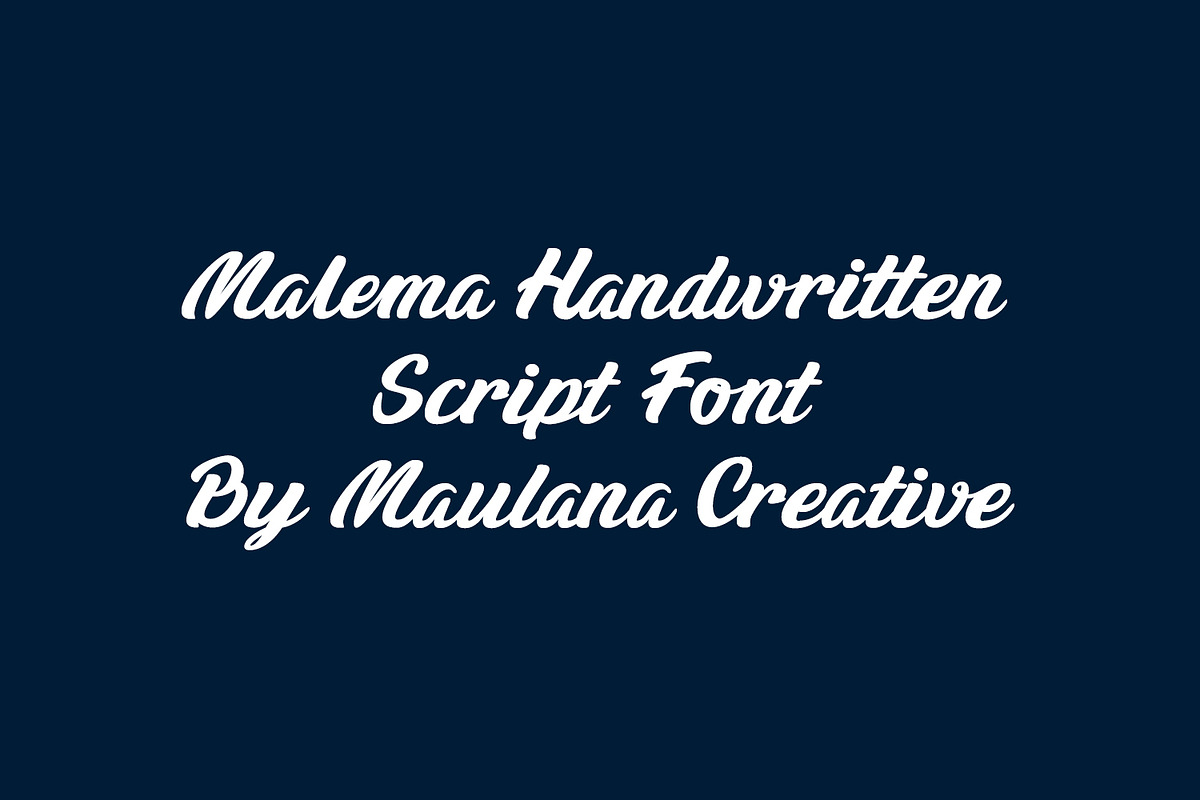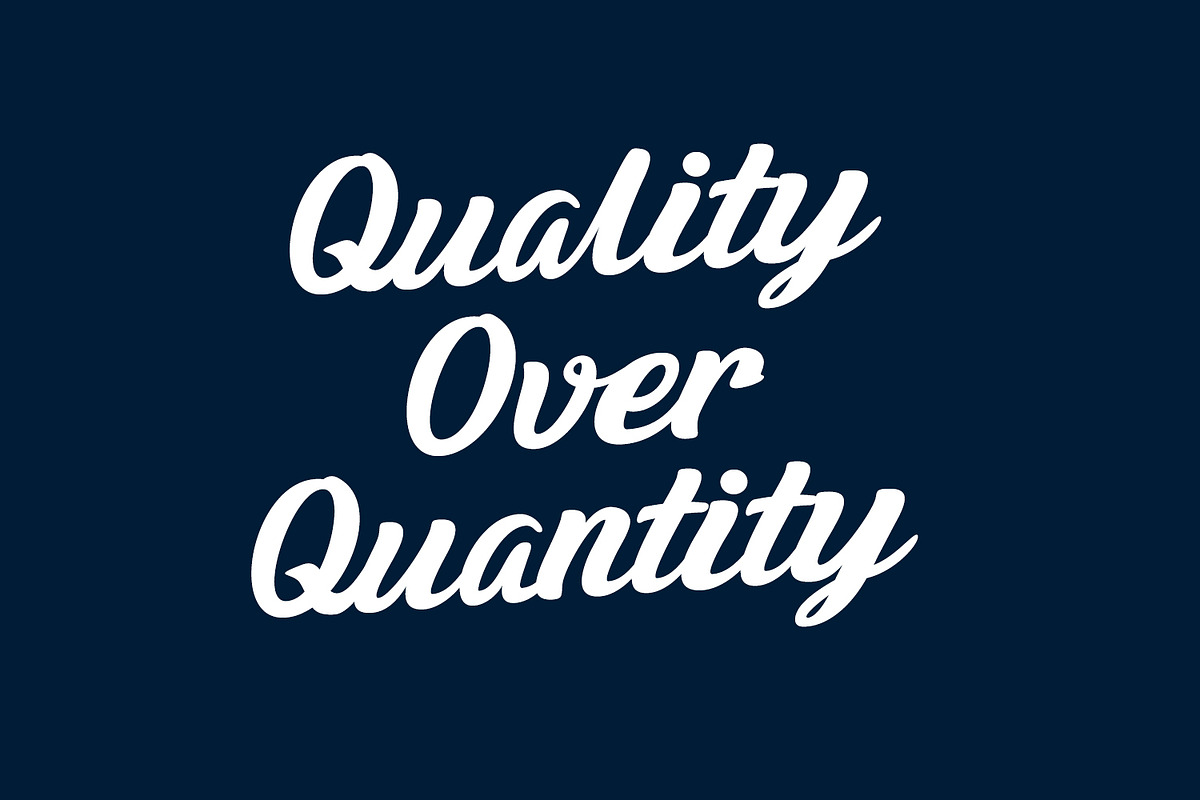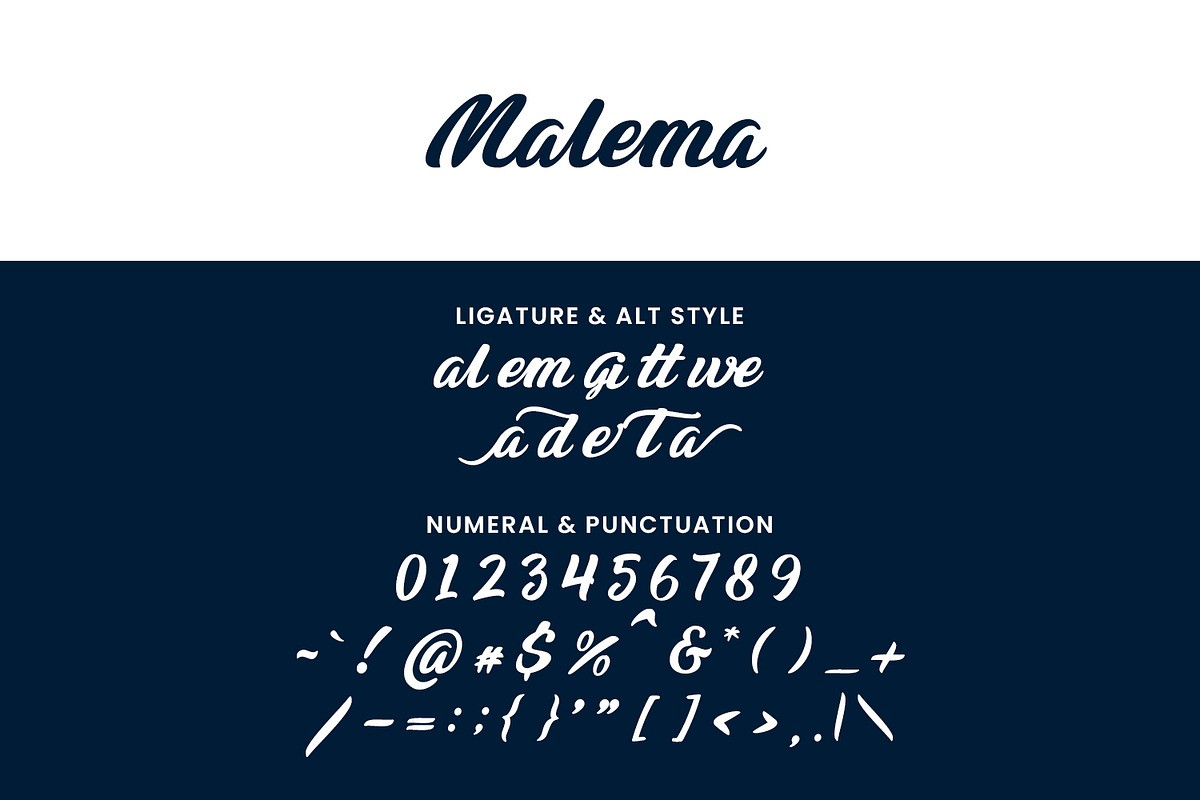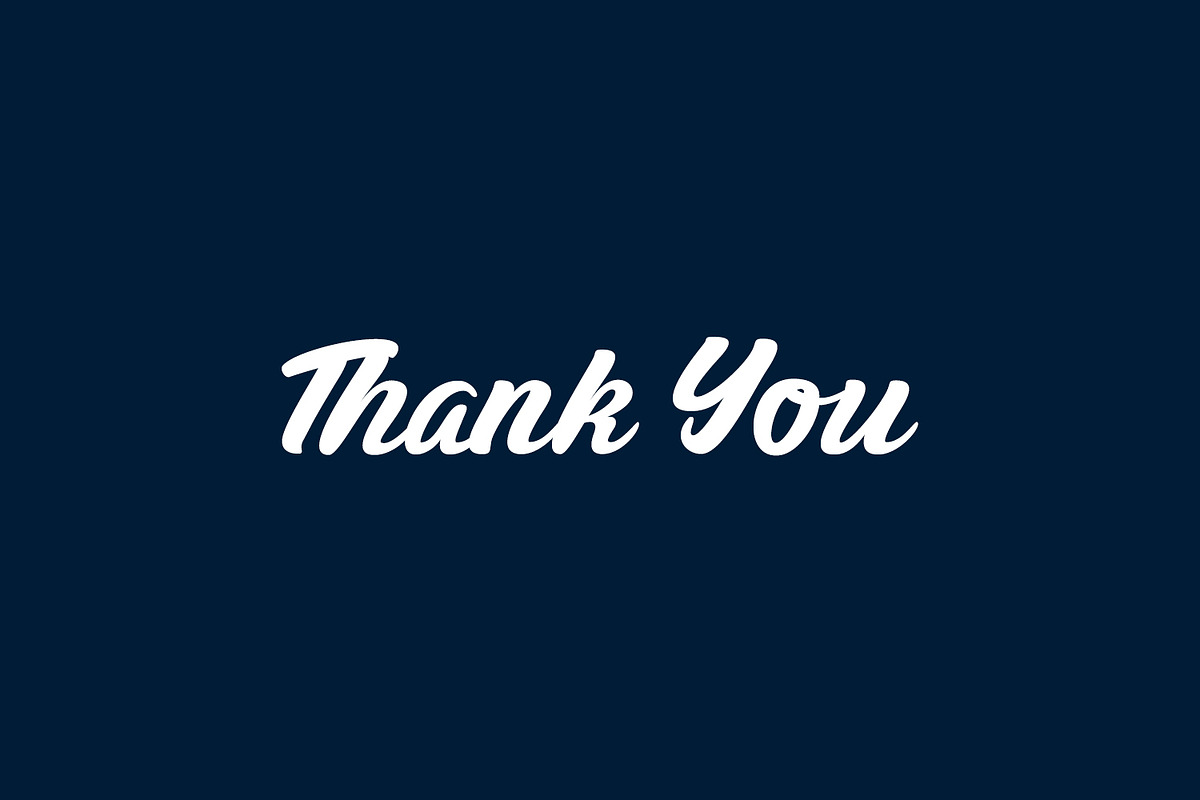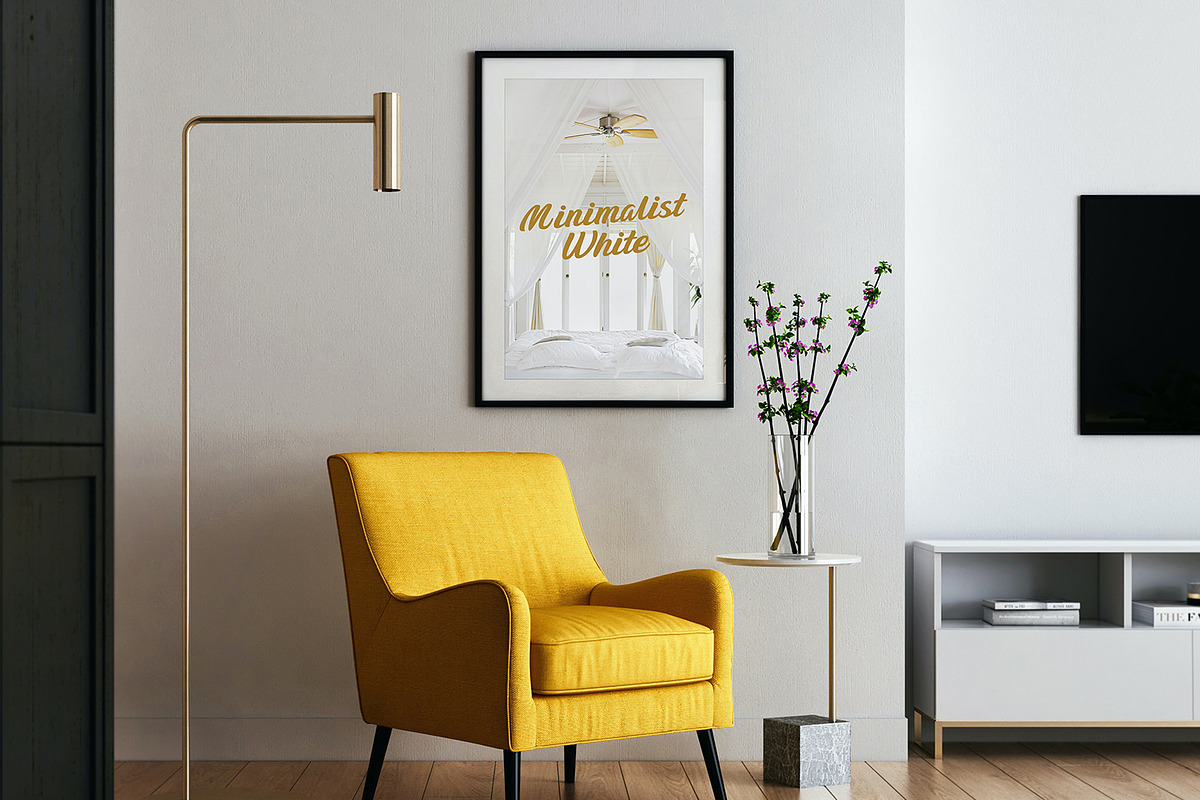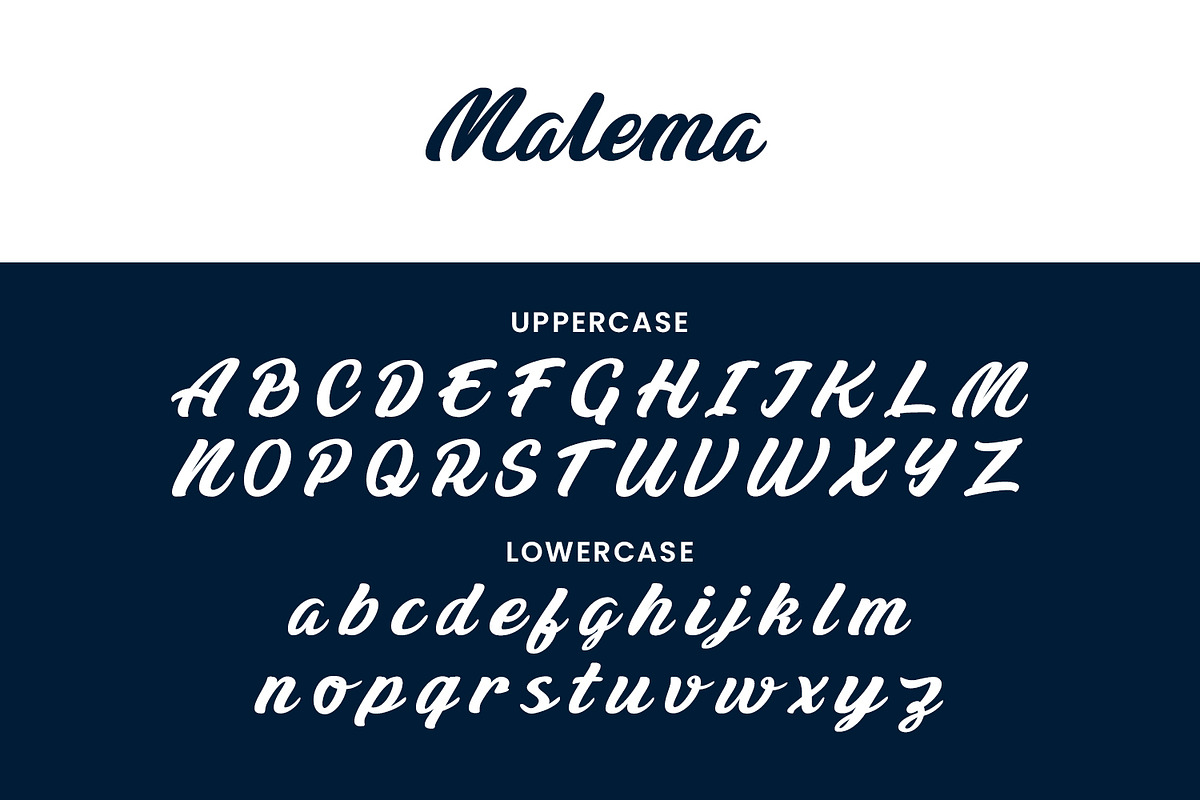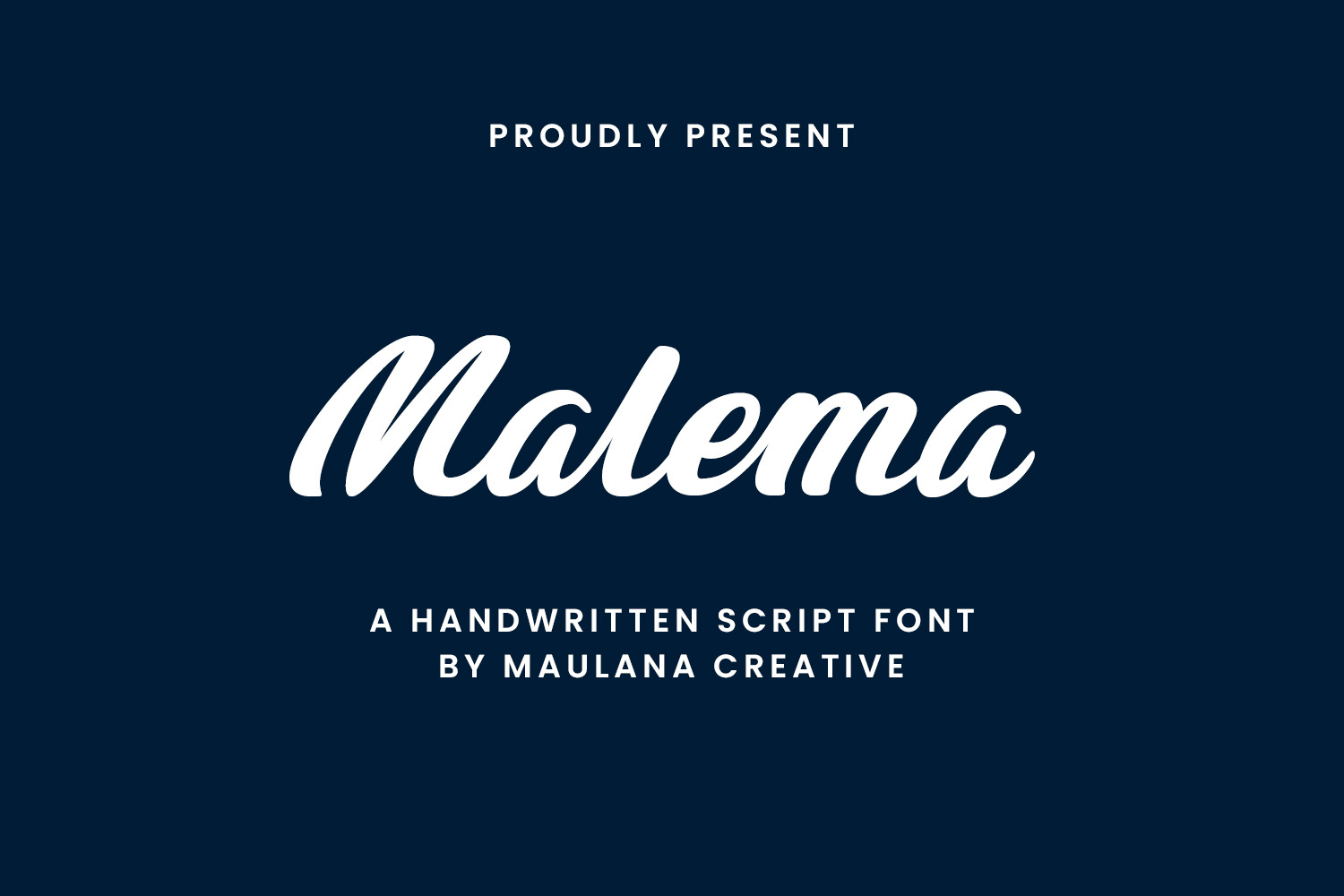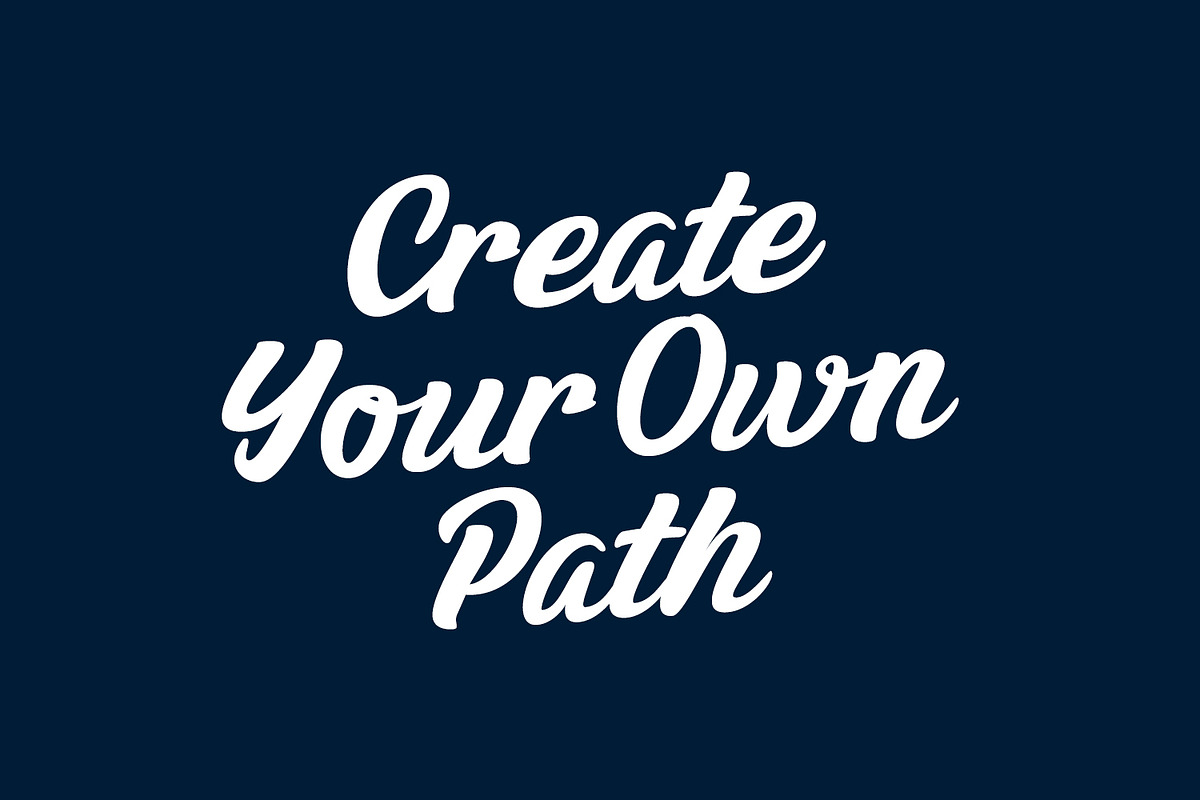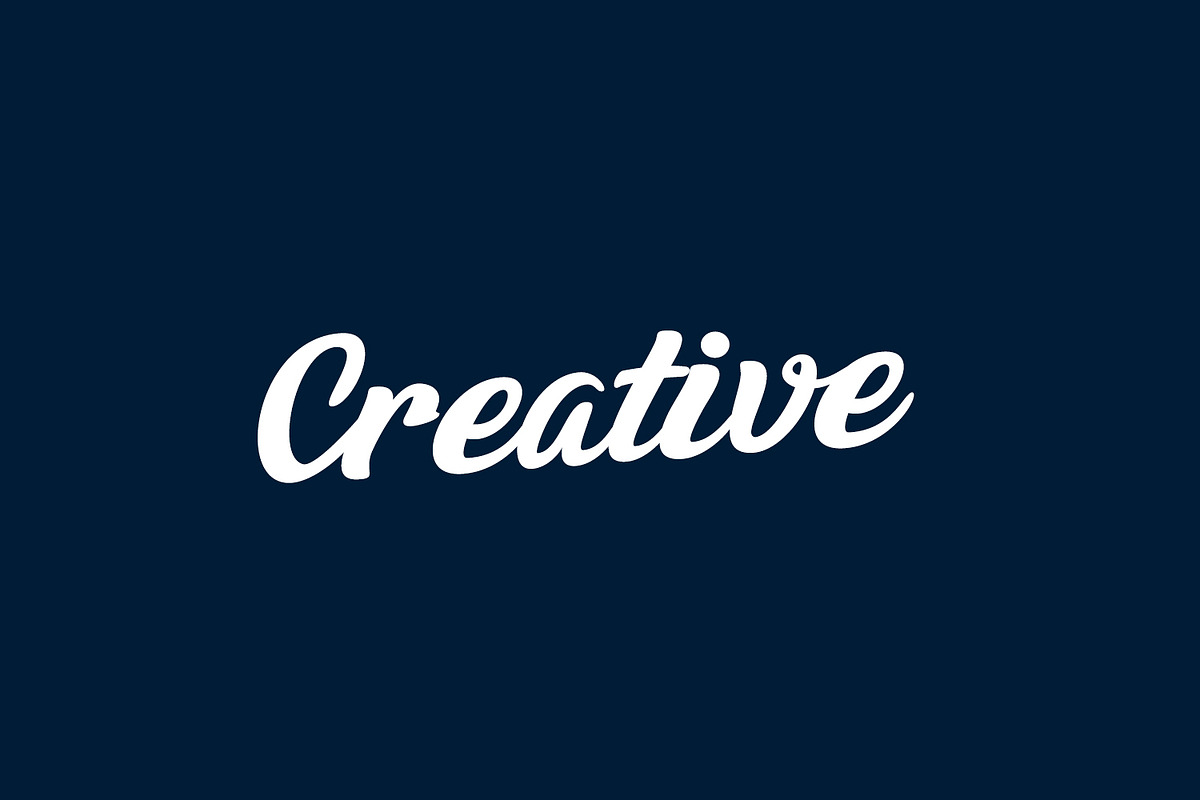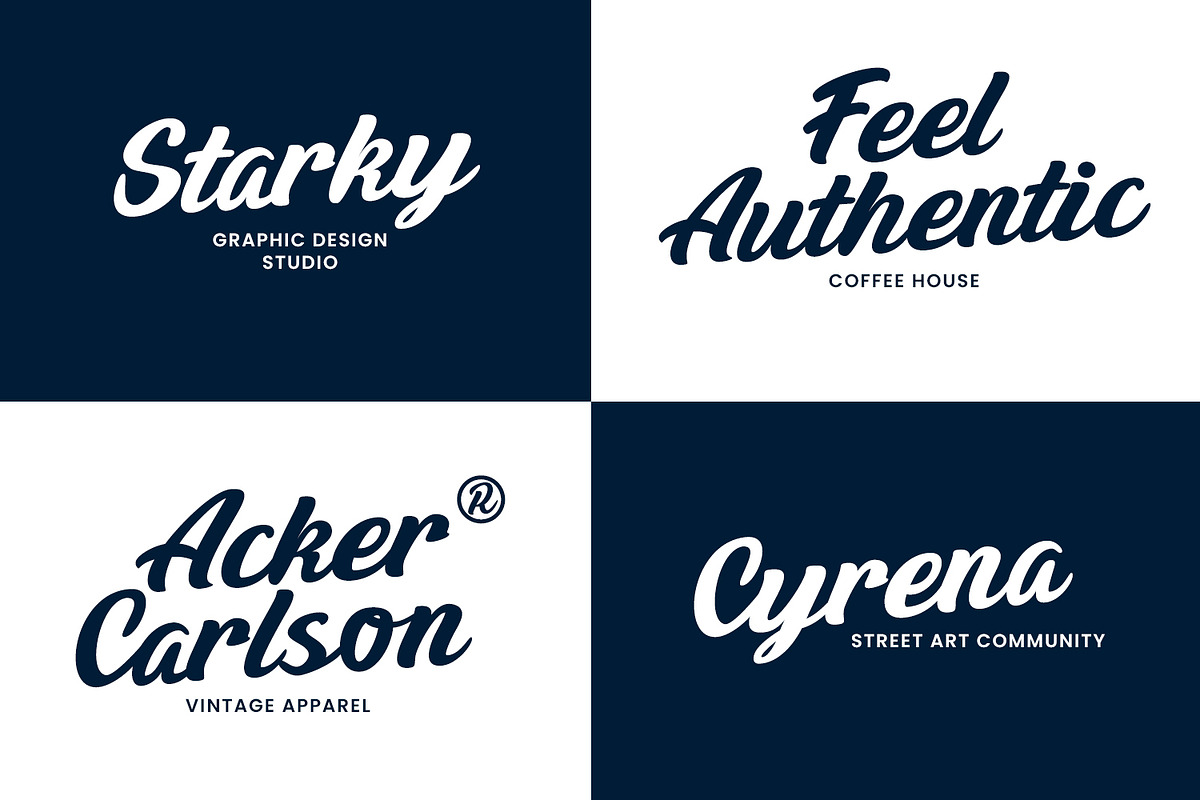
Malema Handwritten Script Font
Give your designs an authentic handcrafted feel. “Malema Handwritten Script Font” is perfectly suited to signature, stationery, logo, typography quotes, magazine or book cover, website header, clothing, branding, packaging design and more.